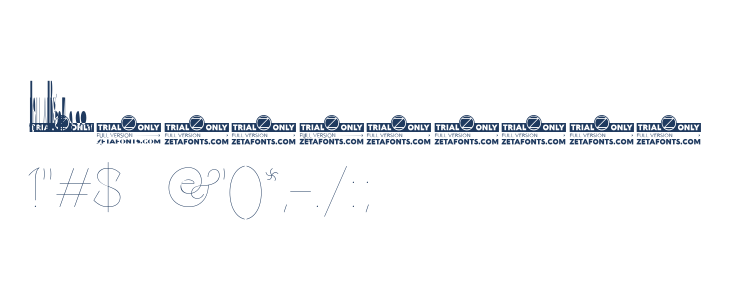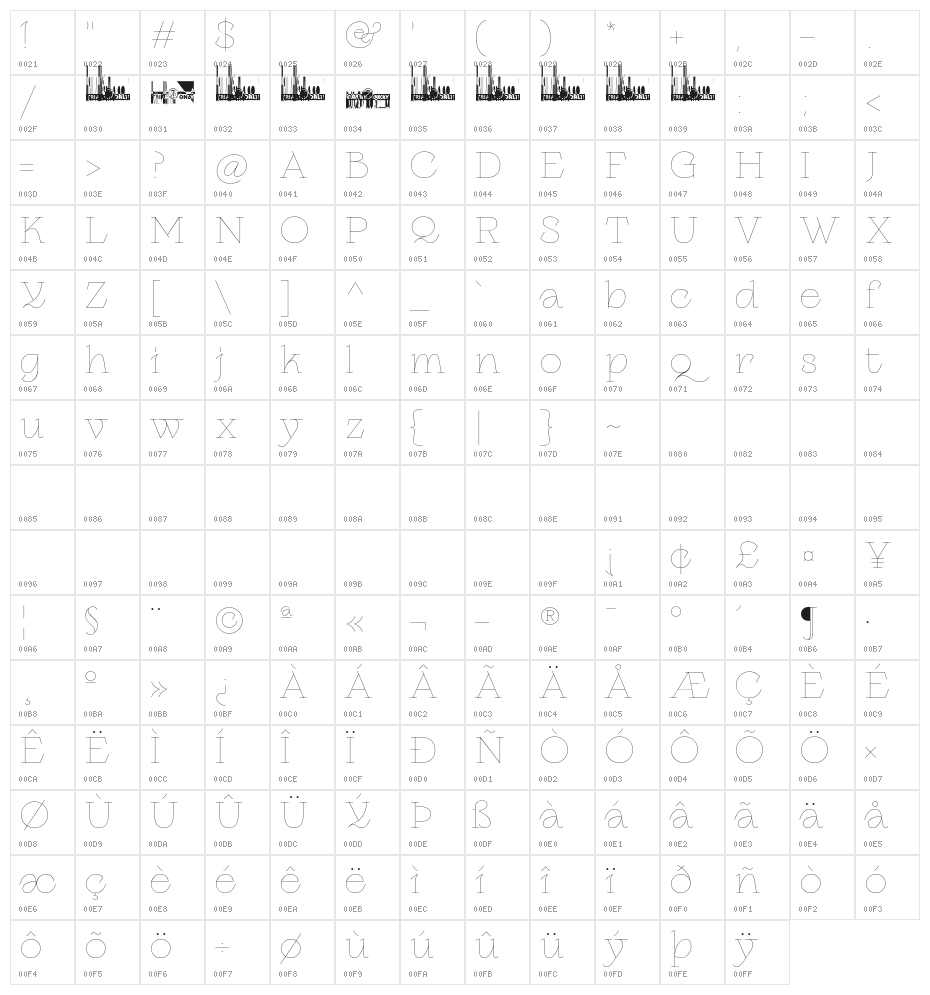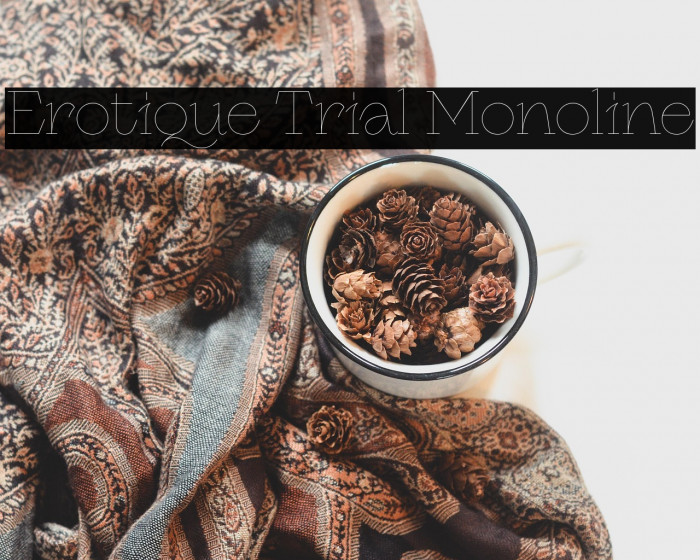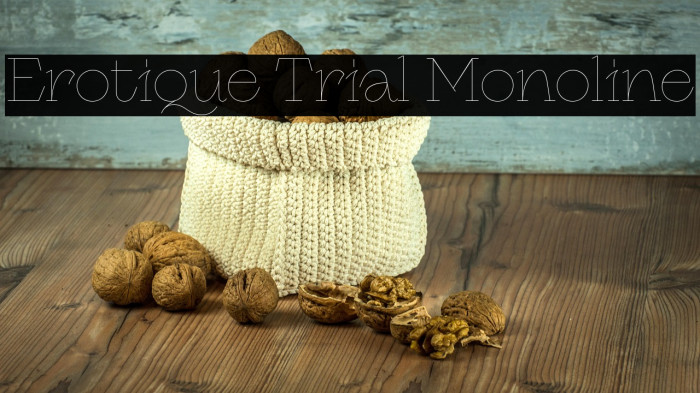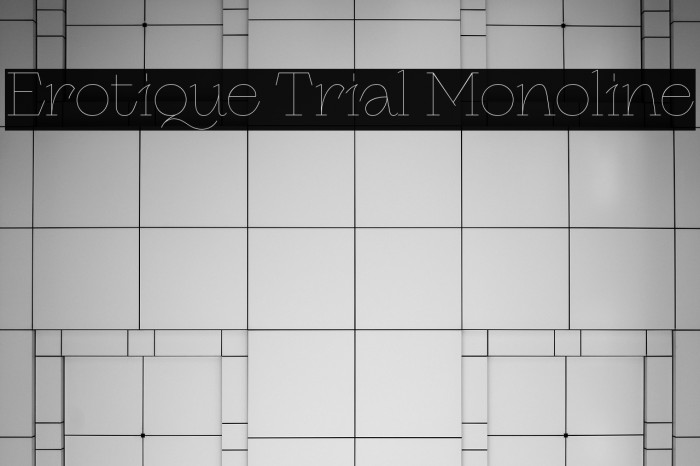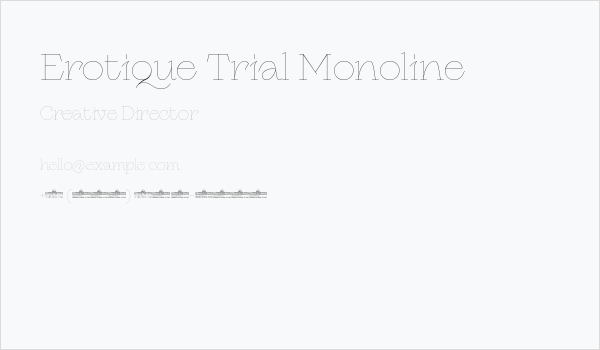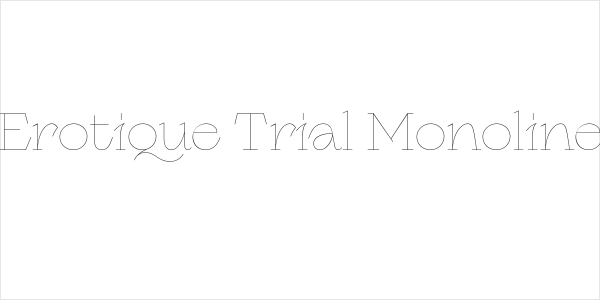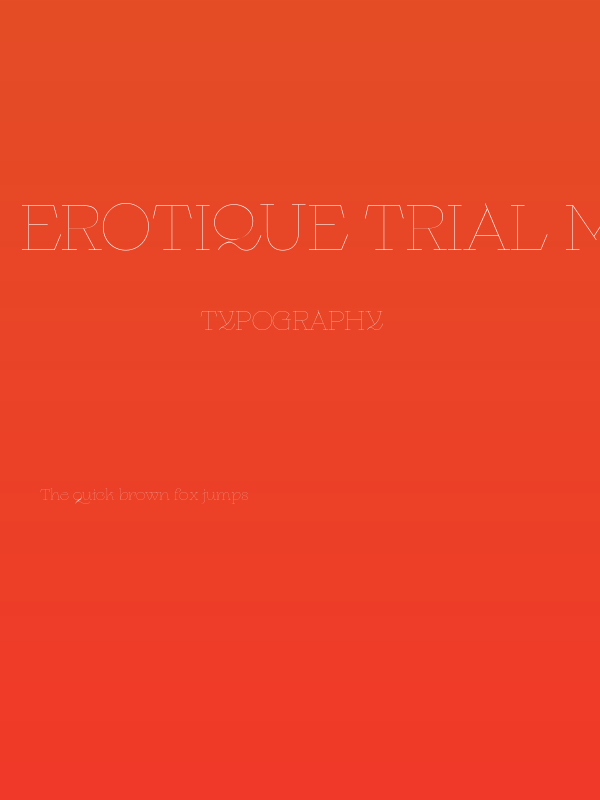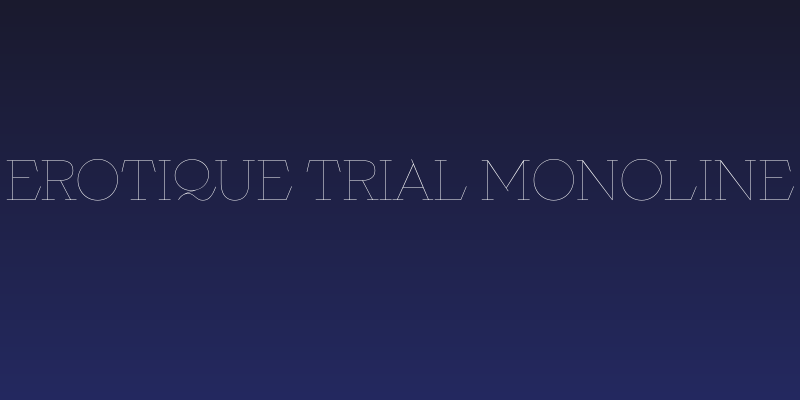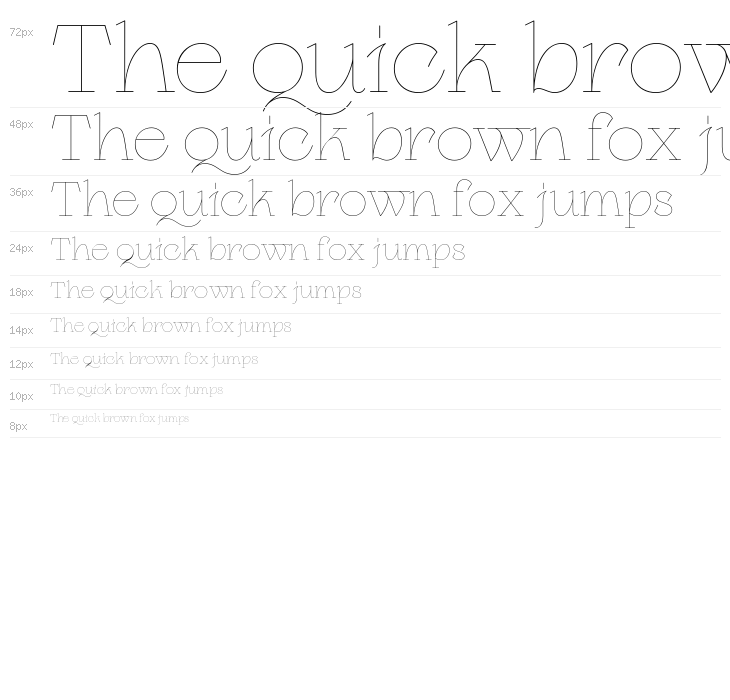
Erotique Trial Monoline Font
Erotique Trial Monoline Description
This font features a delicate and elegant monoline style, characterized by its thin, consistent stroke width throughout each character. The uppercase letters exhibit a refined geometric structure, while the lowercase letters maintain a fluid and graceful appearance. The font includes a full set of numerals and a variety of special characters, each designed with the same attention to detail and balance. Its minimalist design and clean lines make it suitable for modern and sophisticated applications.
| Overall Style | Elegant and Minimalist |
| Proposed Projects | Ideal for wedding invitations, luxury branding, editorial design, and high-end product packaging. |